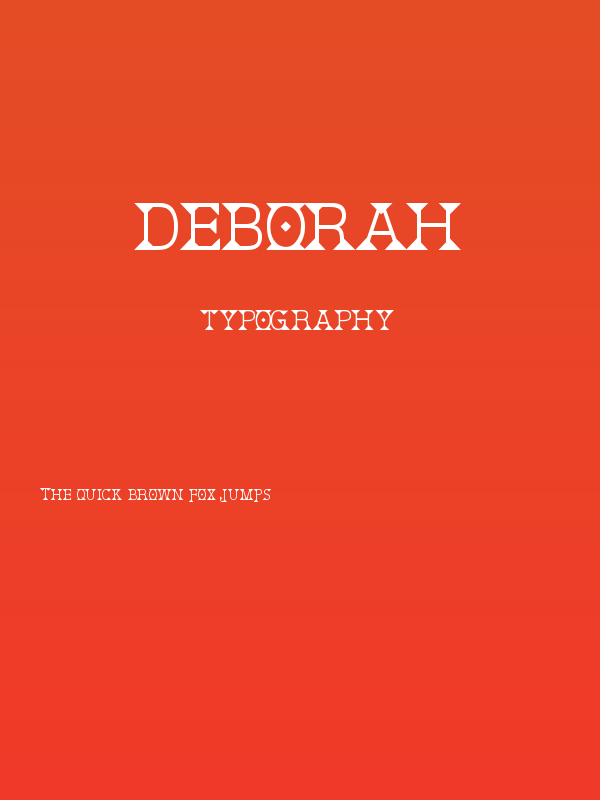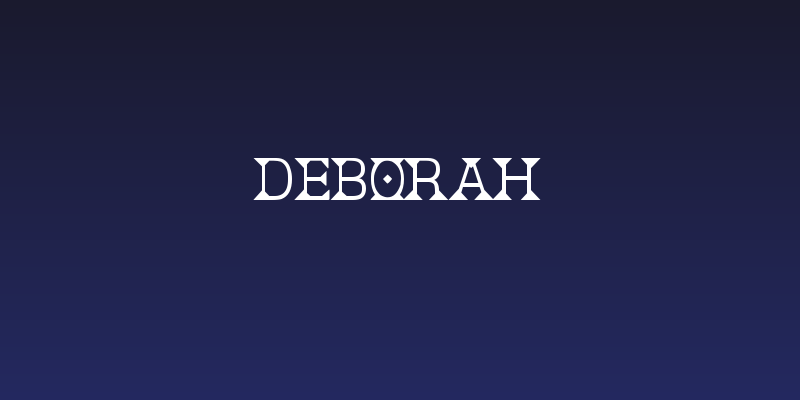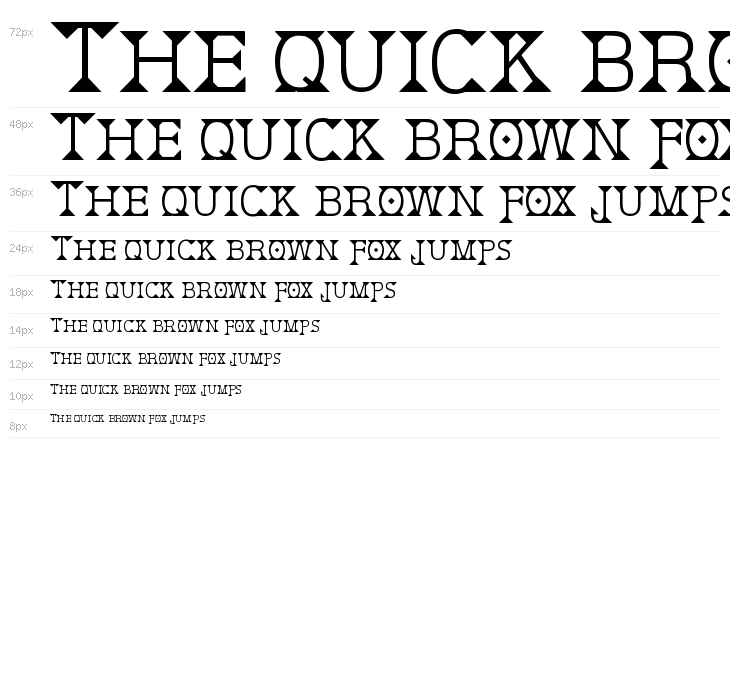
Deborah Font
Deborah Description
This font features a bold and striking design with a unique geometric flair. The characters are constructed with sharp angles and distinct triangular cutouts, creating a visually captivating and modern appearance. The uppercase letters exhibit a consistent height and width, while the lowercase letters maintain a similar style, ensuring uniformity across the typeface. The numerals are equally bold, with a similar geometric influence, making them stand out prominently. Special characters are designed with the same attention to detail, providing a cohesive look throughout. This font's distinctive style makes it ideal for projects that require a bold and modern aesthetic.